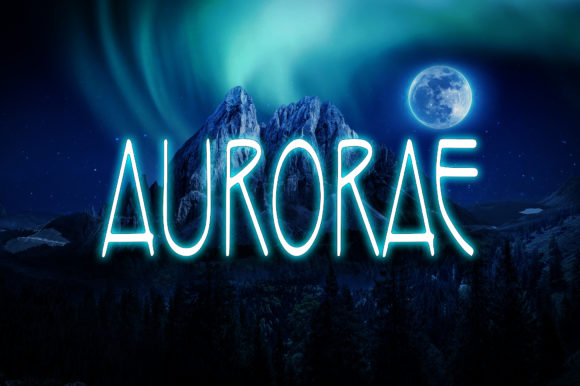
Introducing Aurorae Font, the minimalist and cool sans serif font that will revolutionize your web design endeavors.
Crafted with precision by the renowned Amany, Aurorae Font is not just a font; it's an artistic masterpiece that will elevate your digital creations to new heights. Its clean lines, sharp angles, and understated elegance make it the perfect choice for web designers seeking fonts that are both visually appealing and highly functional.
With Aurorae Font, you'll discover a font that effortlessly complements a wide range of design projects. Whether you're creating stunning websites, captivating social media graphics, or eye-catching presentations, Aurorae Font has the versatility to bring your vision to life.
In the ever-evolving world of web design, where trends come and go, Aurorae Font stands as a timeless classic. Its timeless design ensures that your projects will remain visually appealing and engaging for years to come.
Don't settle for ordinary fonts that blend into the background. Embrace the power of Aurorae Font and watch your designs blossom with creativity and professionalism. Experience the difference that a truly exceptional font can make.
Welcome to the world of Aurorae Font, where design comes alive.